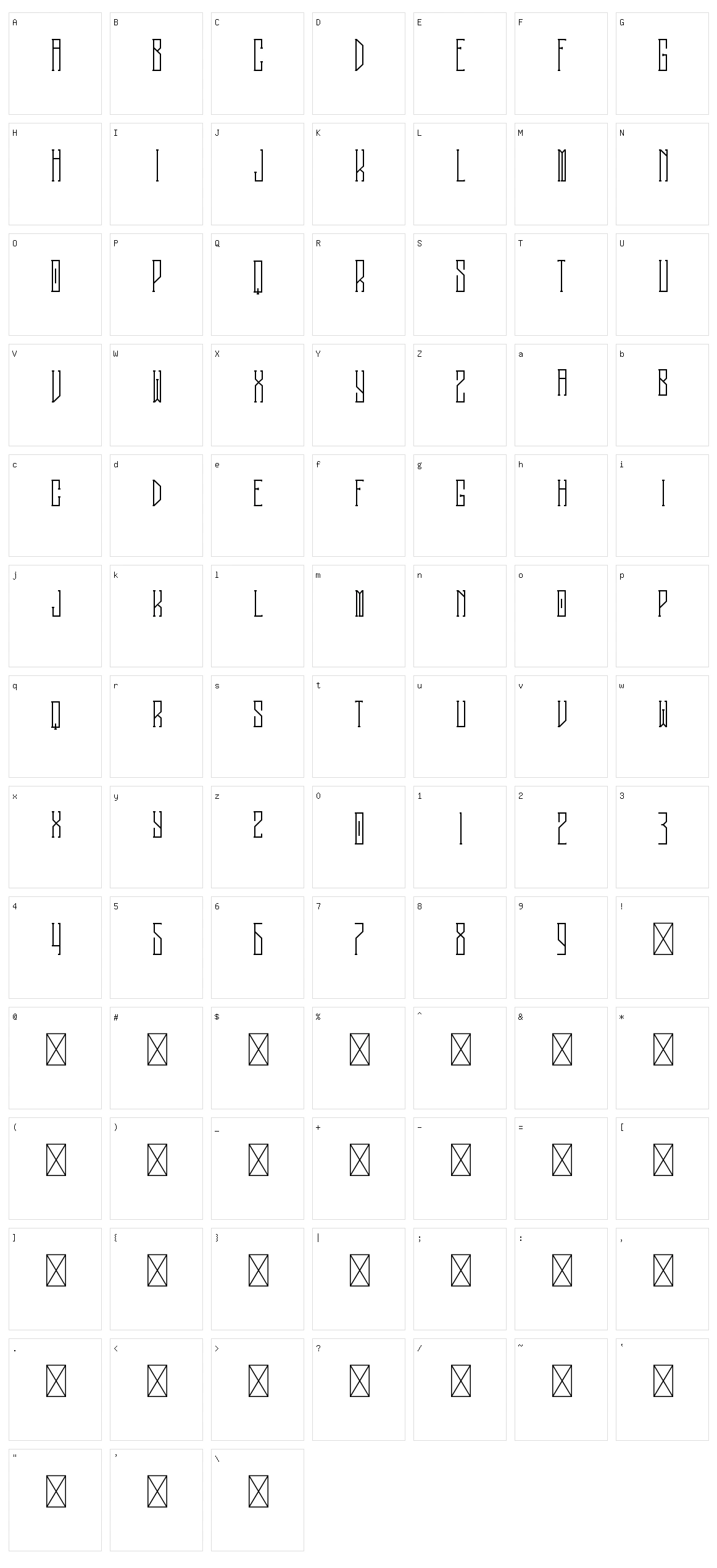
The free font Melancholy is carefully designed by VPcreativeshop, showcasing a thoughtful balance of creativity and usability and belongs to the Gothic font family. When you download the ZIP file, it contains only 3.15 KB of font files, making it lightweight and quick to download. Please review the license details below to understand permitted usage and distribution rights. If license information is not available, we recommend using this font for personal projects only or contacting the author directly for commercial usage permissions.